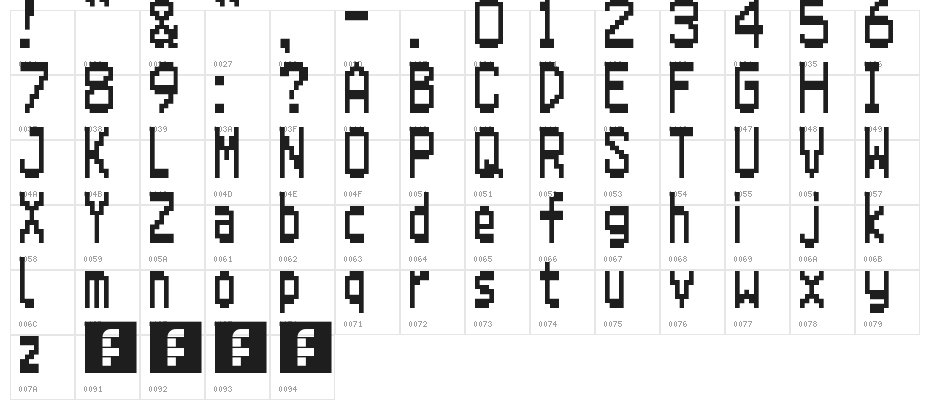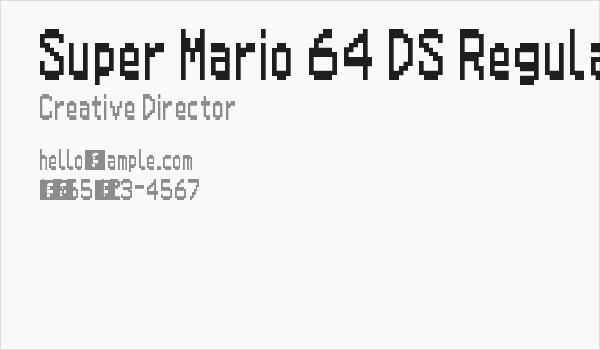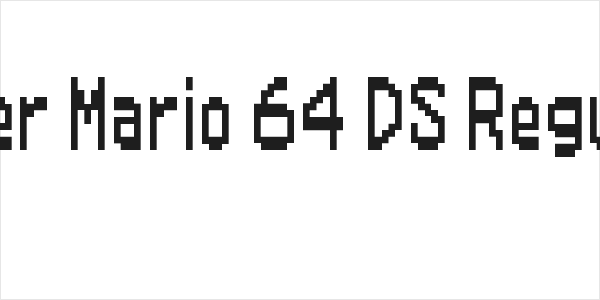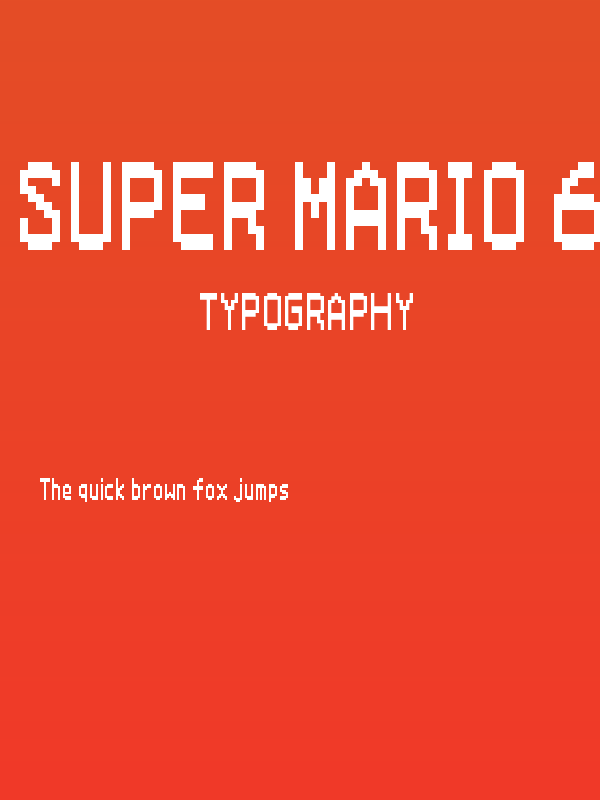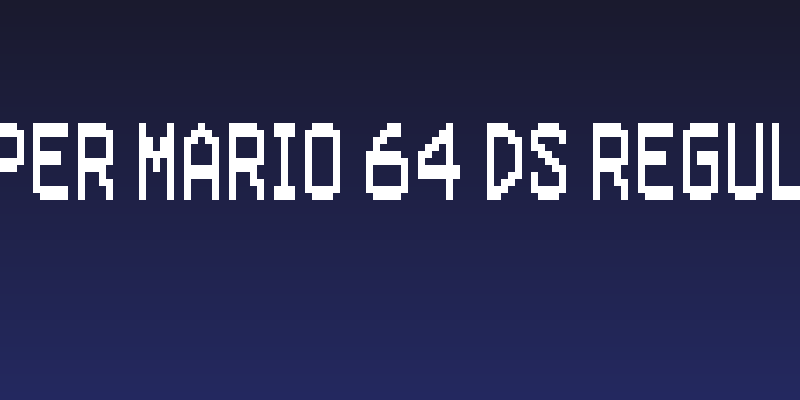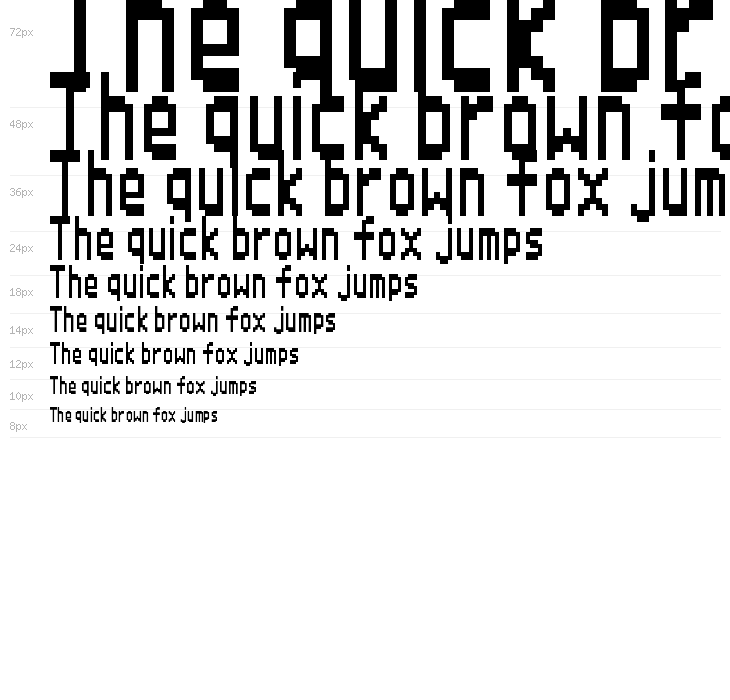
Super Mario 64 DS Regular Font
Super Mario 64 DS Regular Description
This font features a blocky, pixelated style reminiscent of retro video games, with each character formed by a grid-like structure. The uppercase and lowercase letters maintain a consistent height, contributing to a uniform appearance. The numerals and special characters follow the same pixelated design, ensuring a cohesive look across all glyphs. The font's simplicity and geometric shapes make it highly legible, even at smaller sizes. Its nostalgic aesthetic is ideal for projects that aim to evoke a sense of classic gaming or digital art. The bold, angular lines give it a distinctive and recognizable appearance, perfect for capturing attention.
| Use Case | Logos, Headlines, Digital Art |
| Proposed Projects | Ideal for video game design, retro-themed graphics, digital art projects, and nostalgic branding. |